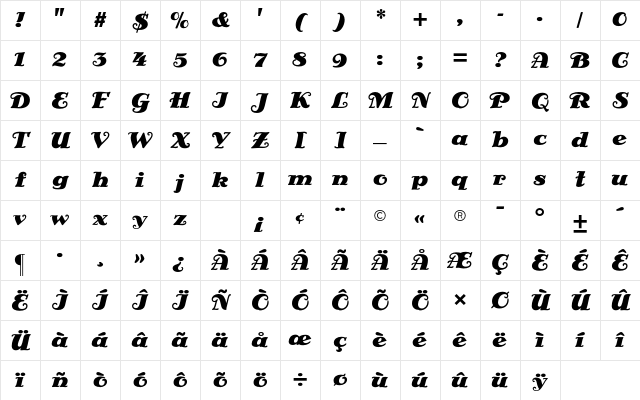
Siena CG Black Regular
Foundry: Agfa Corporation
Design Context for Siena CG Black
Siena CG Black is a composed and adaptable typeface that performs quietly and consistently across a wide range of design contexts.